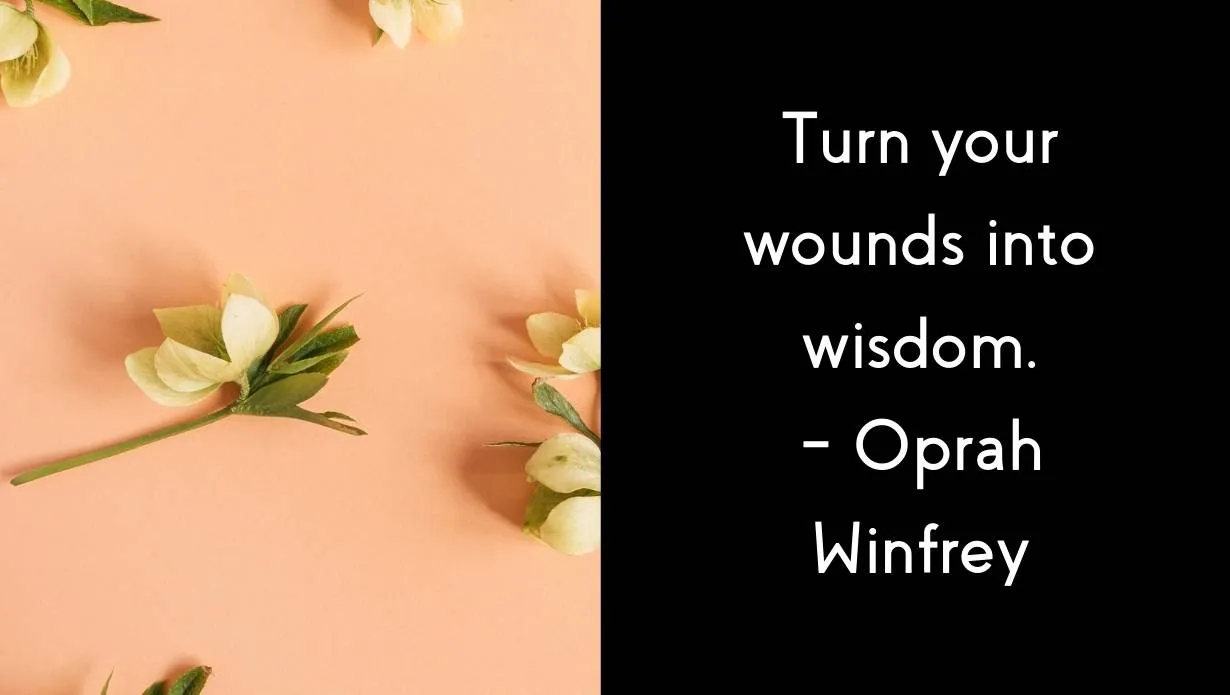
In this post, we present a stylish typeface that is . It is a Sans serif typeface with a unique design that makes it stand out from the other sans serifs. The typeface was designed by Jack Harvatt and founder of an Overpass type foundry, who is known for his work on creating geometric typefaces.
This typeface has an original and very distinctive look that will give your designs a modern and fresh feel. The typeface is perfect for headlines, logos, and short texts.
It is available in two weights regular, and bold, and supports different international languages. Another similar Roboto Condensed Font is best for various designs and looks like this typeface.
| Name | Coves Font |
| Designer | Jack Harvatt |
| Style | Sans seirf |